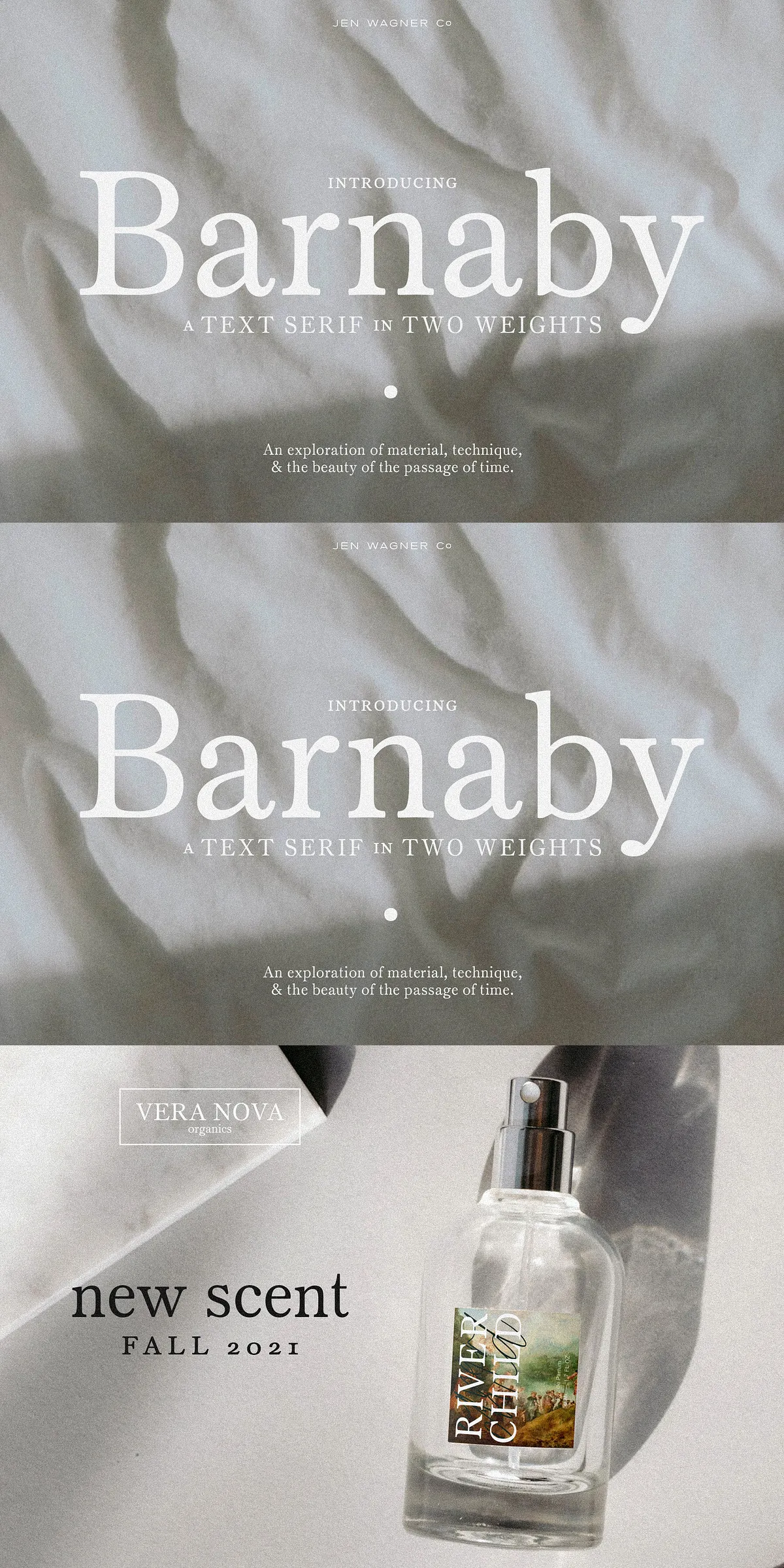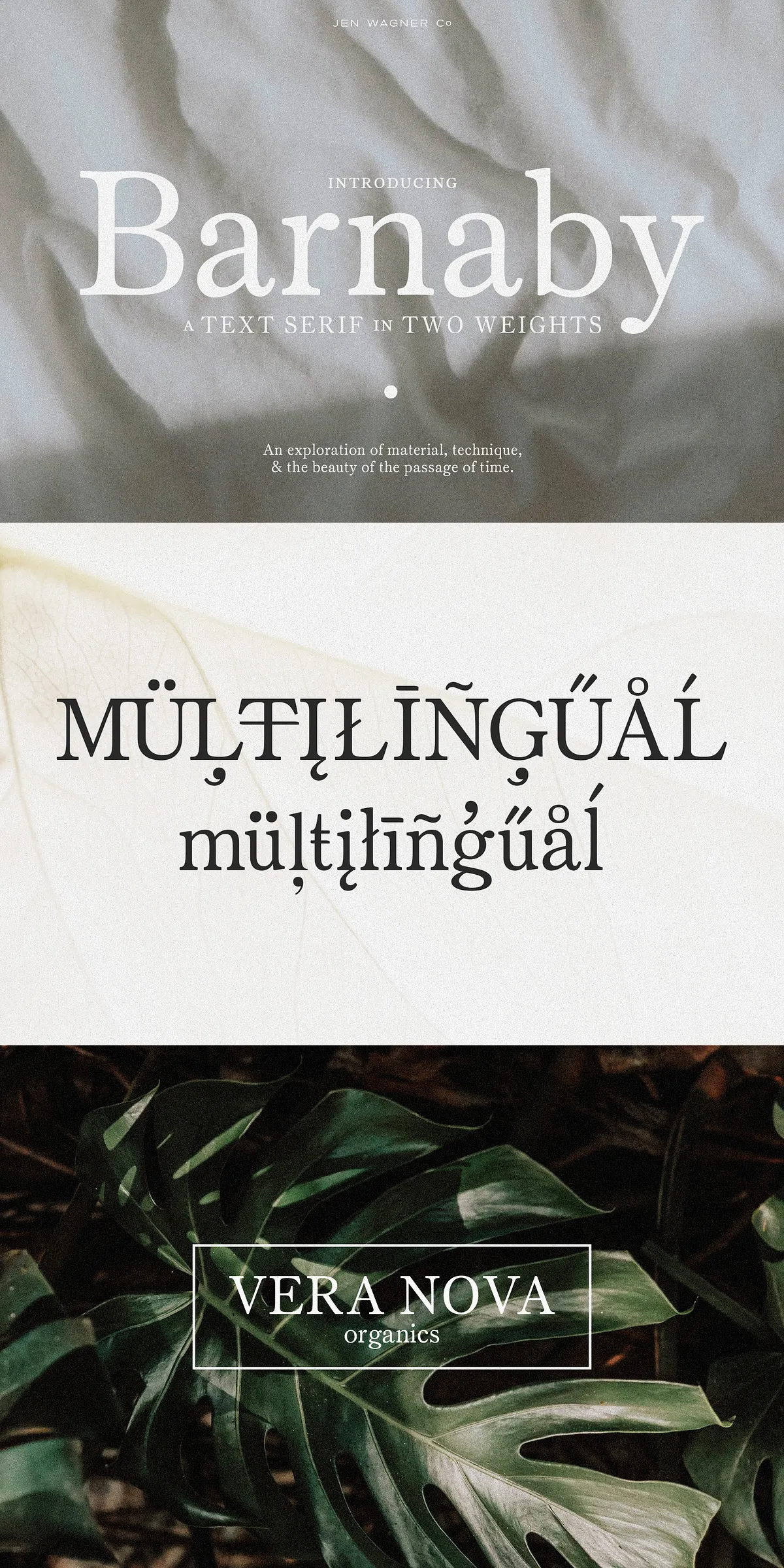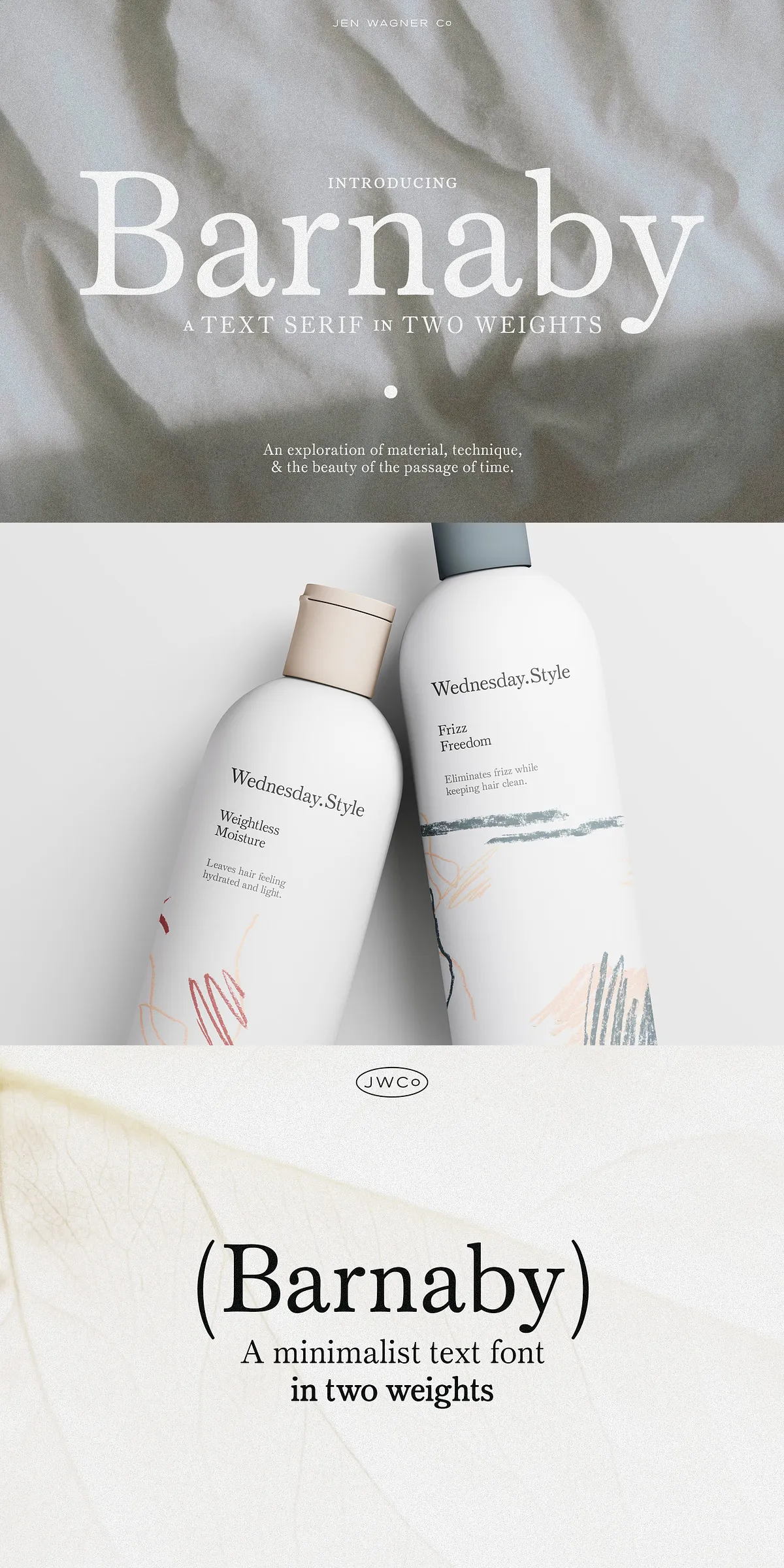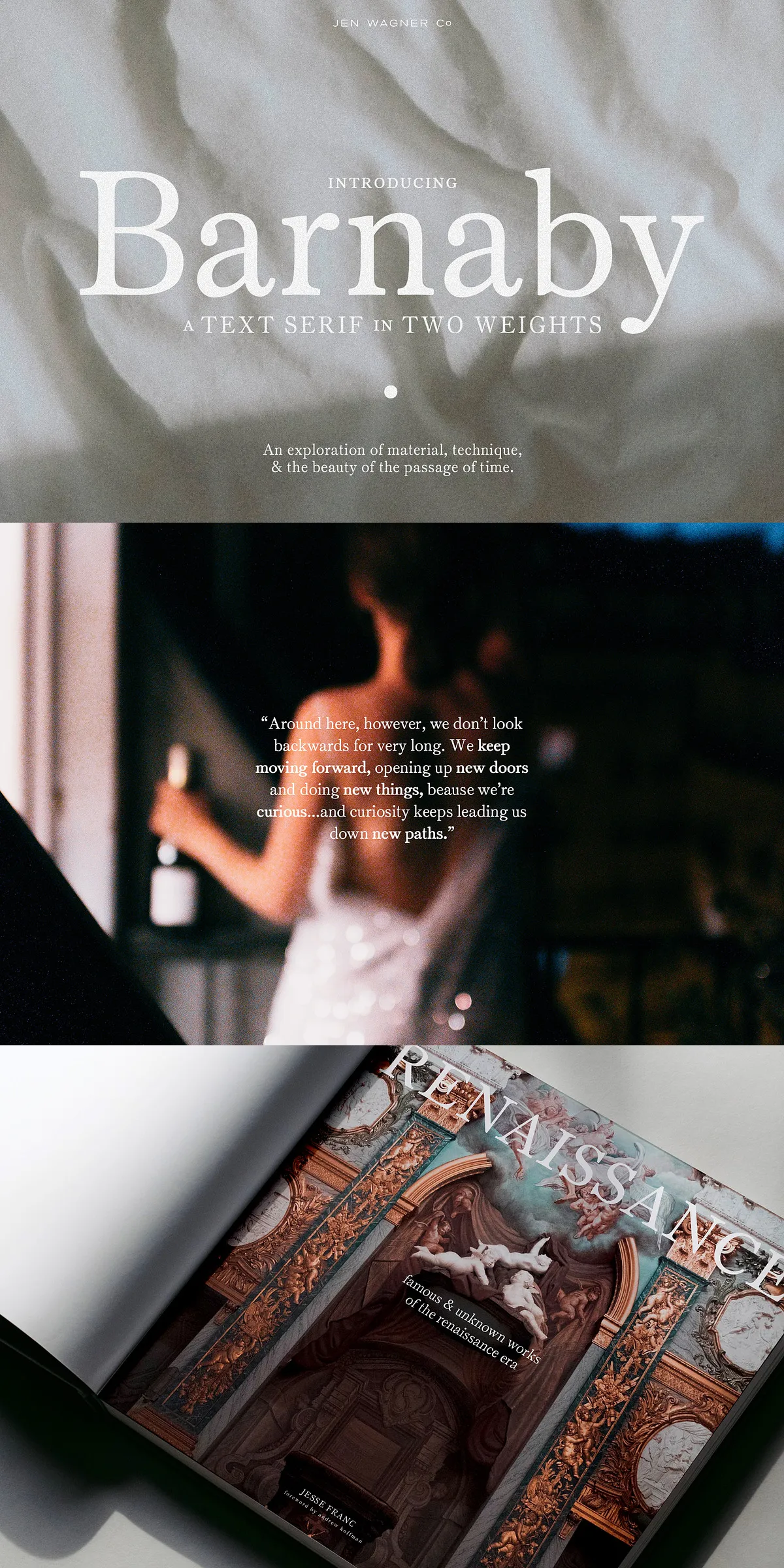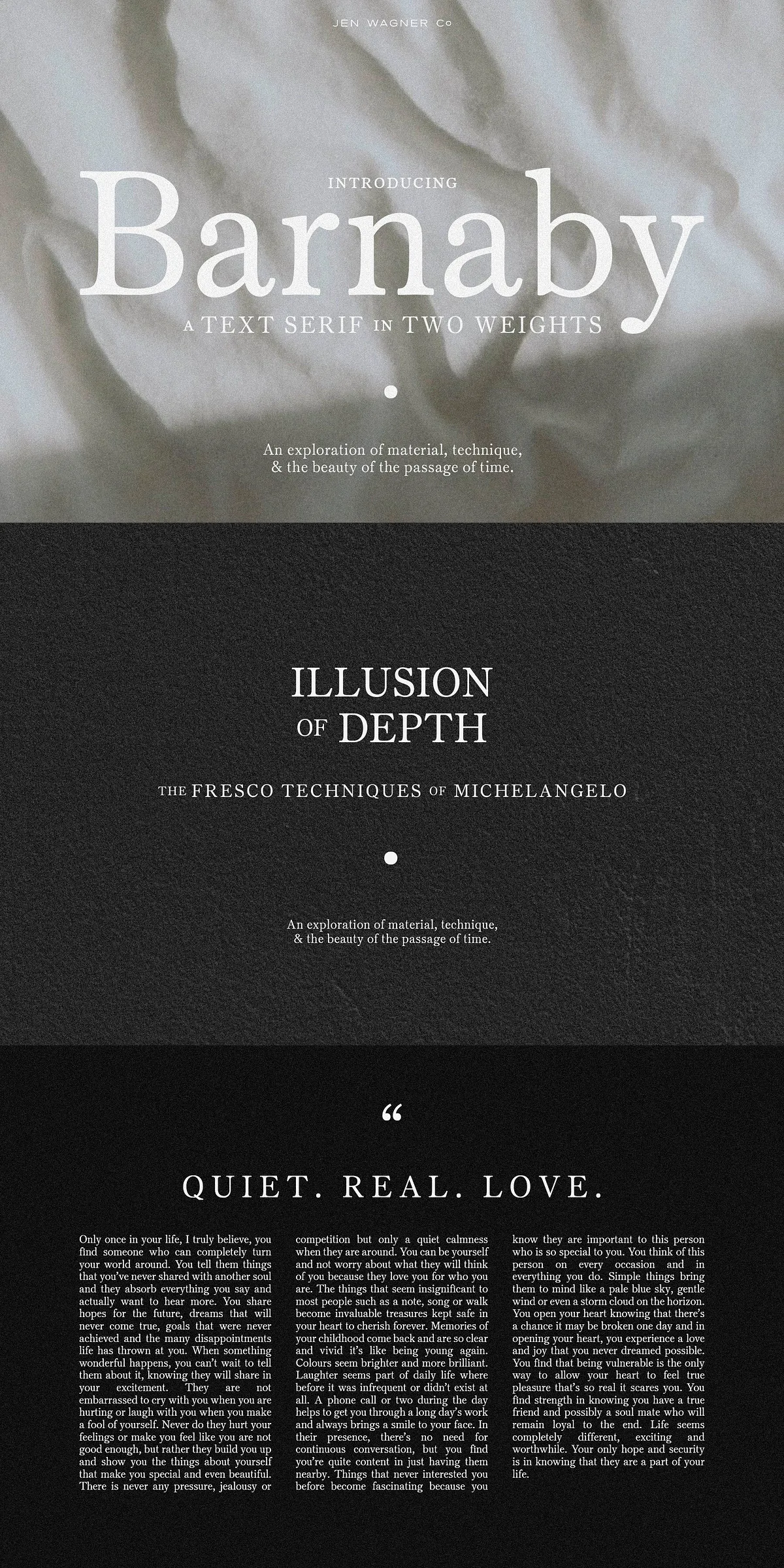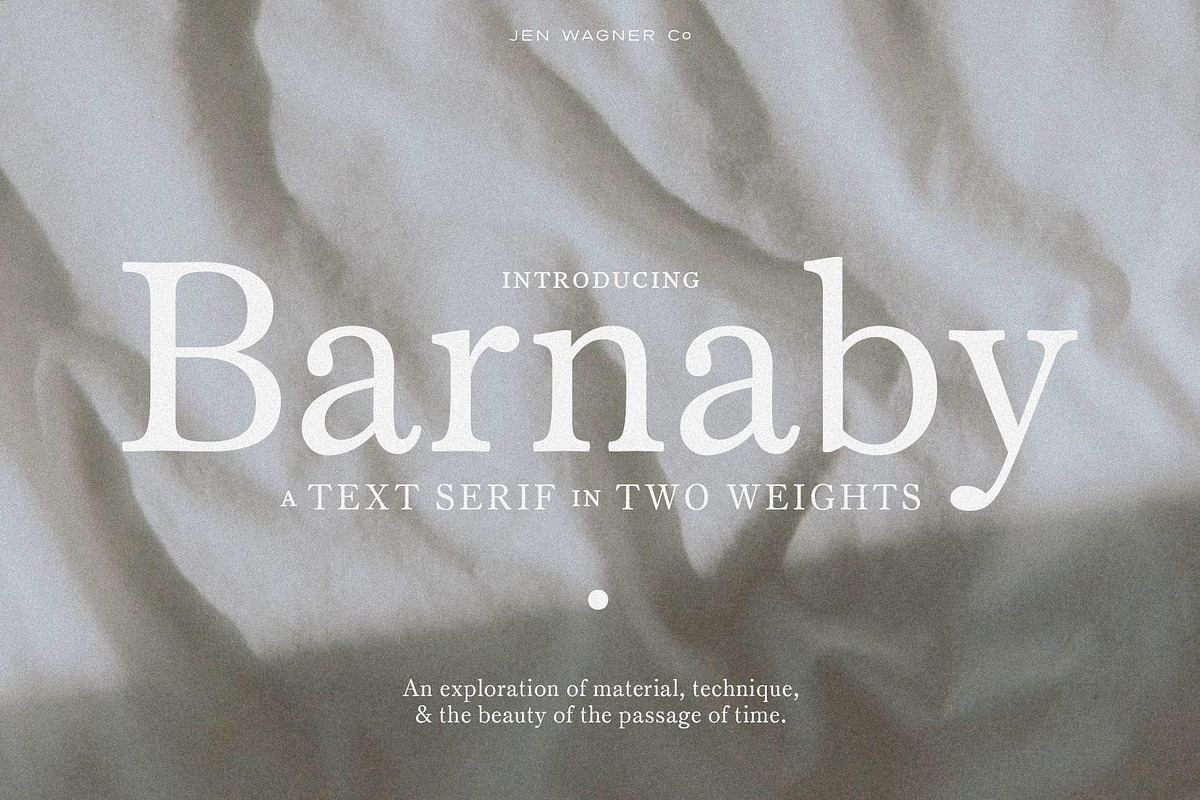
Introducing Barnaby — a supremely elegant, upper- and lowercase text serif that redefines what it means to be both beautifully legible and deeply expressive. Crafted for modern designers who value clarity, style, and enduring grace, Barnaby is more than a font — it’s a design companion for projects where sophistication meets simplicity.
Engineered for Clarity, Designed for Impact
Every curve and stroke in Barnaby is meticulously crafted to perform flawlessly at small text sizes, making it ideal for body copy in both digital and print formats. Whether you’re designing a magazine spread, a product brochure, a website article, or a luxury invitation, Barnaby ensures readability without sacrificing elegance.
- Optimized for Legibility — High x-height, balanced counters, and clean serifs enhance readability across screens and paper.
- Fluid, Natural Letterforms — Reflects the natural rhythm of handwriting, with subtle humanistic charm.
- Minimalist Sophistication — A clean, restrained design language that doesn’t overpower but enhances.
Two Weights, Infinite Creative Possibilities
Barnaby’s power lies in its two carefully balanced weights — Regular and Semi-Bold — allowing you to create dynamic visual contrast and typographic hierarchy with ease. Use them to emphasize key messages, distinguish headings from body text, or guide the reader’s eye through complex layouts.
- Regular Weight — The ideal foundation for long-form text, subtle branding, or minimalist logotypes.
- Semi-Bold Weight — Perfect for section headers, standout headlines, and high-impact slogans.
Combine both weights in creative harmony. For example: “new scent” in Regular and “Fall 2021” in Semi-Bold — a subtle but powerful typographic distinction that adds polish and professionalism to any project.
Where Barnaby Shines: Versatility in Action
While Barnaby excels as body text, its refined aesthetic makes it a versatile choice across a wide range of applications:
- Branding & Logos — Use in all caps for luxe, timeless logo designs. Think of iconic labels like Vera Nova — clean, bold, and effortlessly elegant.
- Product Packaging — Add sophistication to boxes, labels, and retail displays with a touch of heritage and modernity.
- Website Typography — Implement in blogs, product descriptions, and landing pages for a premium, reader-friendly experience.
- Invitations & Stationery — Ideal for wedding, birthday, and corporate invitations that demand refinement and timeless style.
- Editorial Design — Create clean, balanced layouts for magazines, newsletters, and book typography.
Professional-Grade Features for Seamless Workflow
Barnaby is not just visually stunning — it’s technically robust. Designed with today’s design tools in mind, it supports:
- OpenType Features — Access advanced typographic controls like alternate ligatures, stylistic sets, and kerning pairs.
- Complete Character Set — Full support for uppercase, lowercase, numbers, punctuation, and multilingual characters.